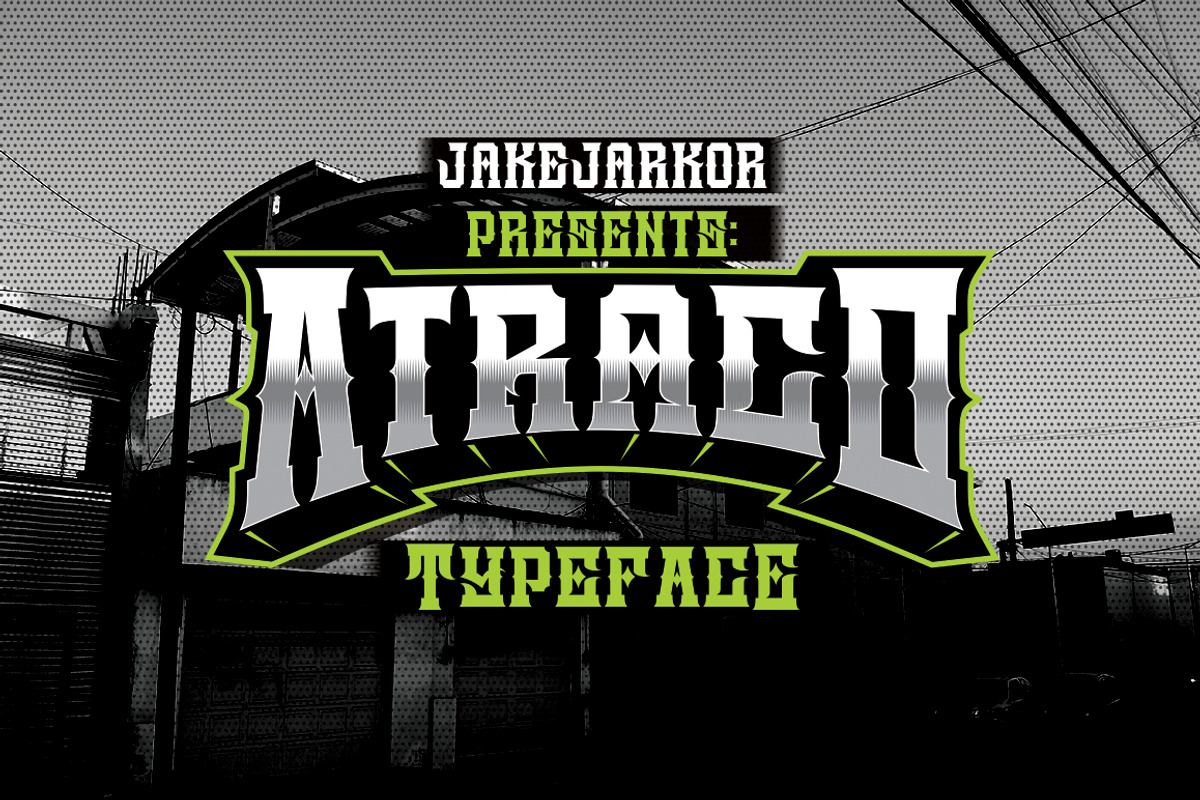
Step into bold design territory with ATRACO Font Free Download—a strong, modern typeface that brings power and confidence to any visual project. Its sharp lines and geometric structure make it ideal for branding, headlines, posters, sports designs, and impactful logos.
ATRACO strikes the perfect balance between edgy and clean, giving your message a professional yet creative flair. Whether you're designing for digital media or print, this font delivers clarity and punch in every letter.